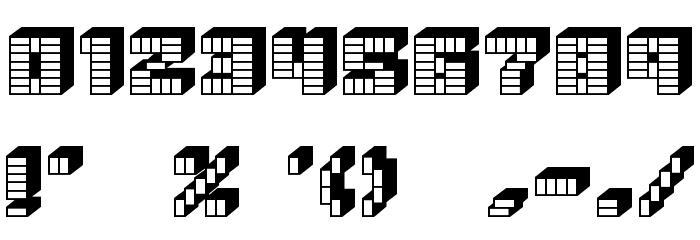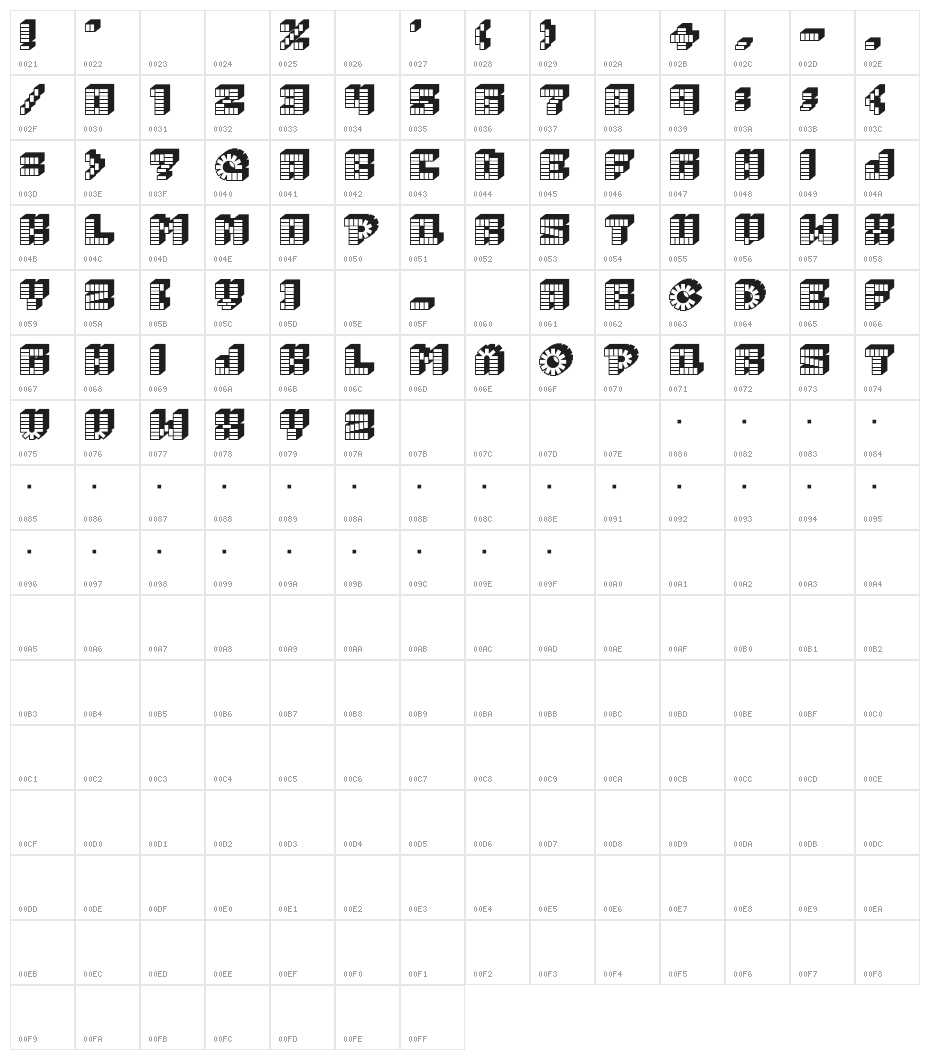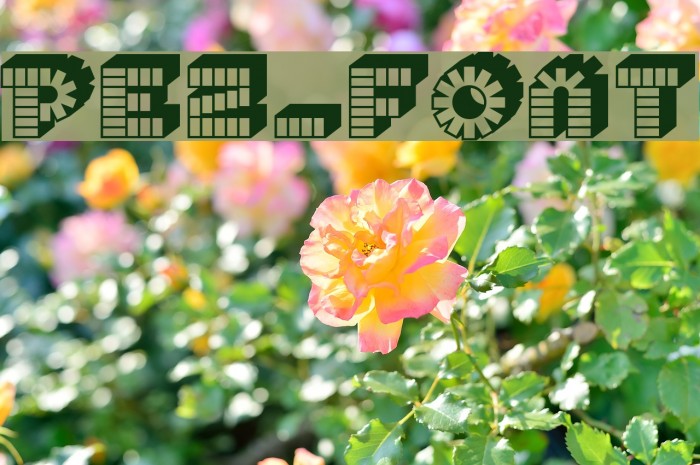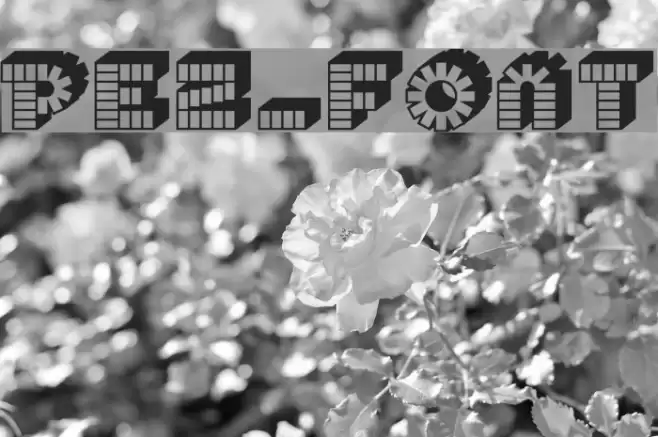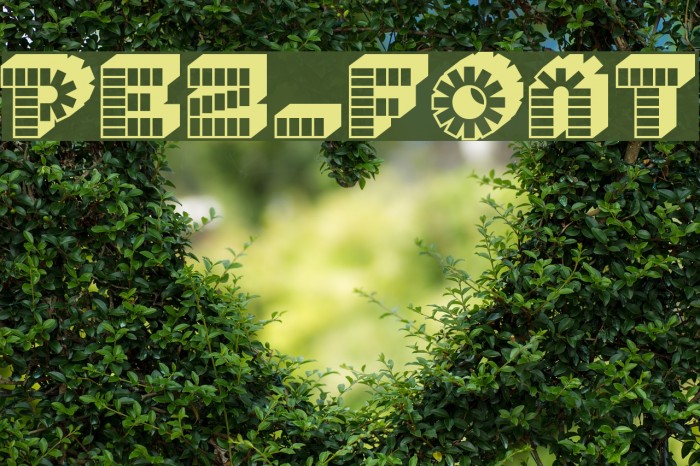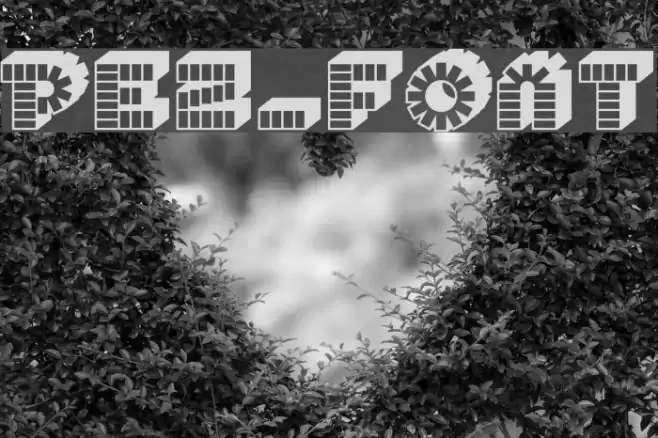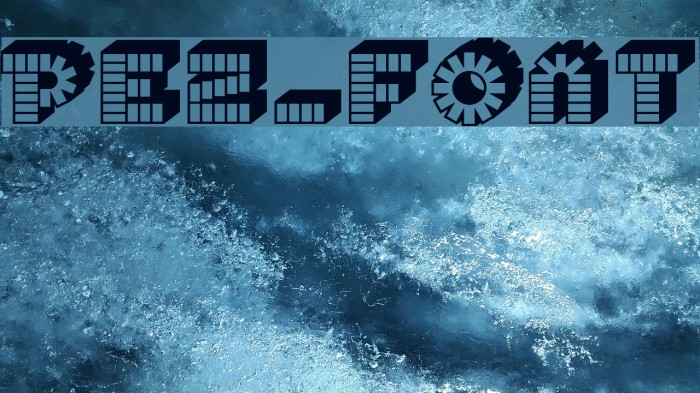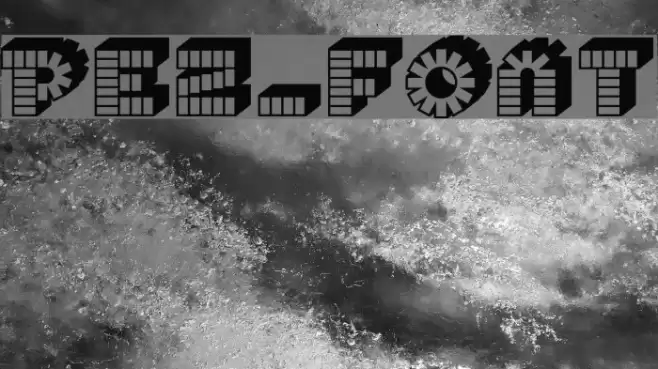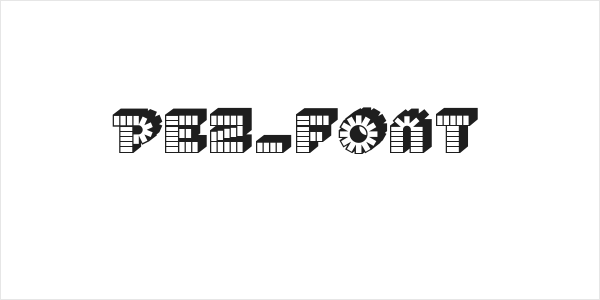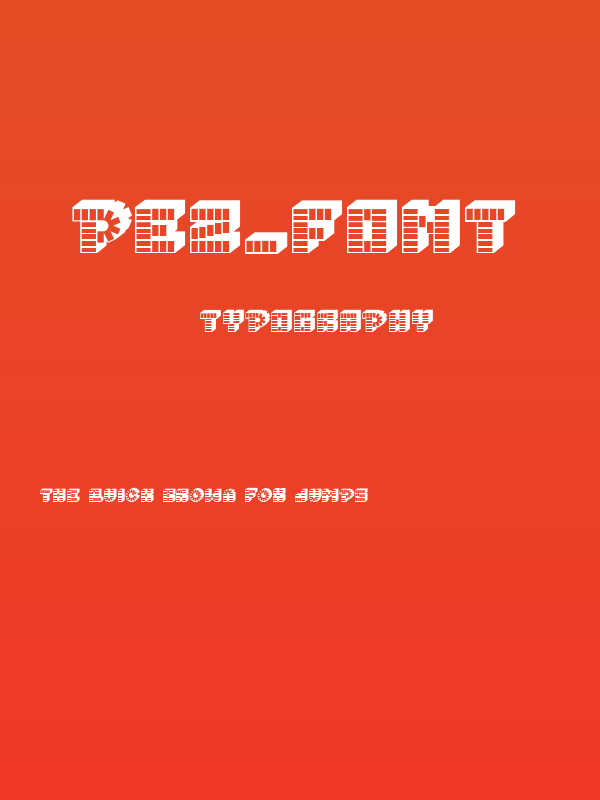
PEZ_font Font
PEZ_font Description
This font features a bold, three-dimensional block style that mimics the appearance of stacked bricks or blocks. Each character is constructed with a grid-like pattern, giving it a playful and dynamic look. The letters and numbers are uniformly designed, maintaining a consistent height and width, which enhances readability despite the intricate design. The font's unique structure makes it stand out, with a strong emphasis on geometric shapes and a bold outline that adds depth and dimension. This style is reminiscent of retro or vintage arcade games, making it ideal for projects that require a nostalgic or playful touch.
| Overall Style | Retro, Playful |
| Proposed Projects | Ideal for video game titles, children's book covers, posters, and any design needing a playful, retro aesthetic. |